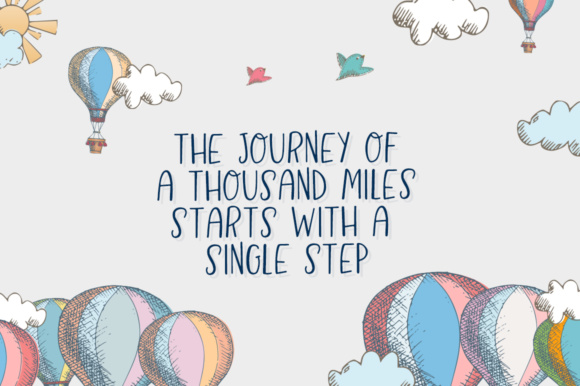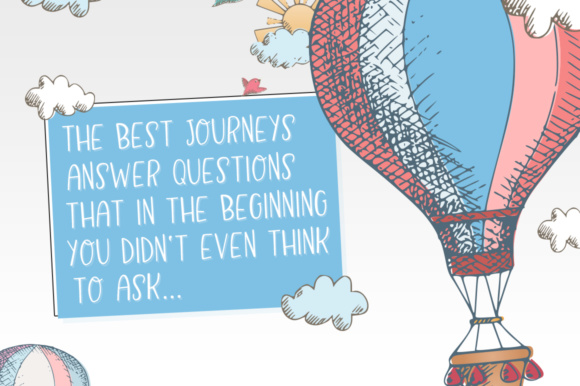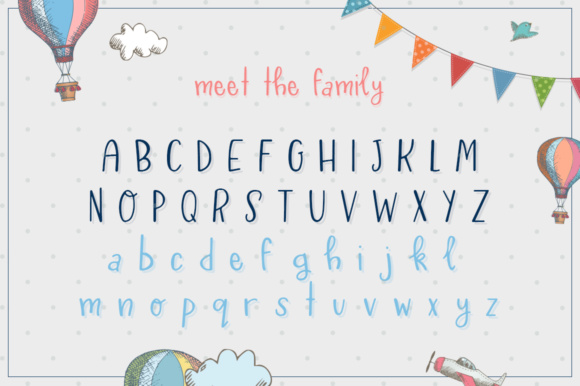
Air Balloon Font: Elevate Your Designs with a Whimsical Touch
Are you tired of using the same old fonts in your designs? Look no further than the Air Balloon font, a hand-drawn, whimsical typeface that’s sure to take your creations to new heights. With its cute, fun, and playful vibe, this font is perfect for designers and crafters looking to add a touch of personality to their work.
The Perfect Pairing Font
One of the standout features of the Air Balloon font is its versatility. Not only is it strong enough to stand alone, but it’s also a perfect pairing font. This means you can use it alongside other fonts to create a unique and eye-catching combination. Imagine pairing Air Balloon with a bold, sans-serif font for a striking contrast, or with a elegant script font for a more sophisticated look. The possibilities are endless!
Legibility at All Sizes
Another advantage of the Air Balloon font is its excellent legibility at all sizes. Whether you’re using it for a large headline or a small caption, this font remains clear and easy to read. This makes it perfect for a wide range of design applications, from posters and flyers to business cards and social media graphics.
A Hand-Drawn Font with a Personal Touch
What sets the Air Balloon font apart from other fonts is its hand-drawn nature. Each letter has been carefully crafted with love and attention to detail, giving it a personal and unique feel. This font is not just a collection of letters and numbers – it’s a work of art that will add a touch of warmth and personality to your designs.
Use Air Balloon Font in Your Designs
So, how can you use the Air Balloon font in your designs? Here are a few ideas to get you started:
- Party Invitations: Use Air Balloon to create fun and playful party invitations that set the tone for a celebratory event.
- Social Media Graphics: Add a touch of whimsy to your social media graphics with Air Balloon, perfect for creating eye-catching posts and stories.
- Branding and Packaging: Use Air Balloon to create a unique and memorable brand identity that stands out from the crowd.
- Crafting and DIY Projects: Add a personal touch to your crafting and DIY projects with Air Balloon, perfect for creating handmade cards, gift tags, and more.
Get Ready to Take Your Designs to New Heights
In conclusion, the Air Balloon font is a must-have for designers and crafters looking to add a touch of whimsy and personality to their work. With its hand-drawn nature, excellent legibility, and versatility, this font is perfect for a wide range of design applications. Whether you’re creating party invitations, social media graphics, or branding and packaging, Air Balloon is sure to take your designs to new heights. So don’t miss out – download Air Balloon today and start creating!